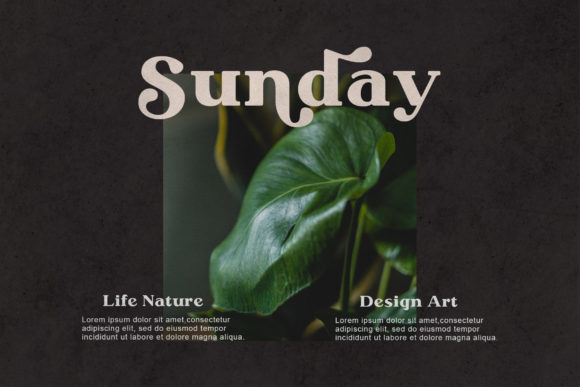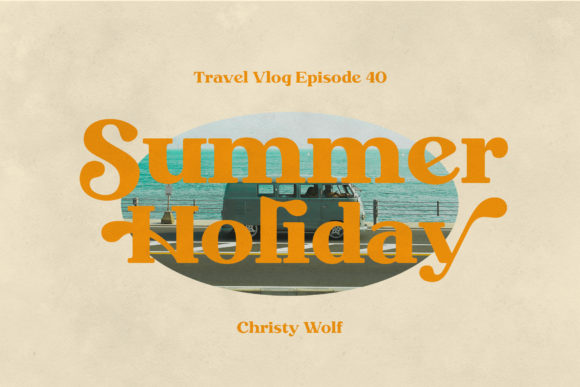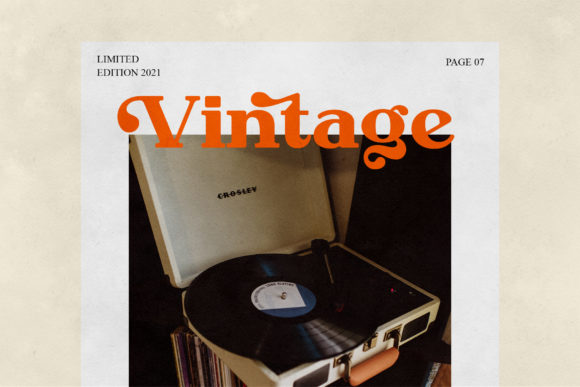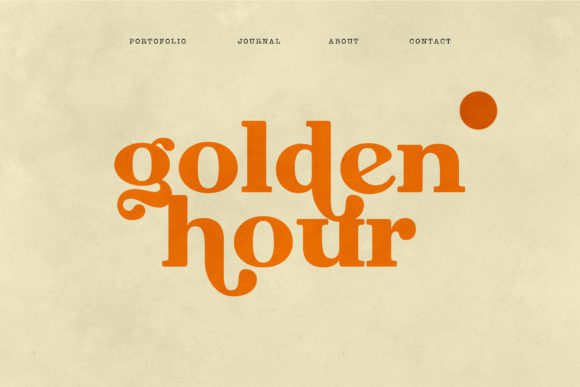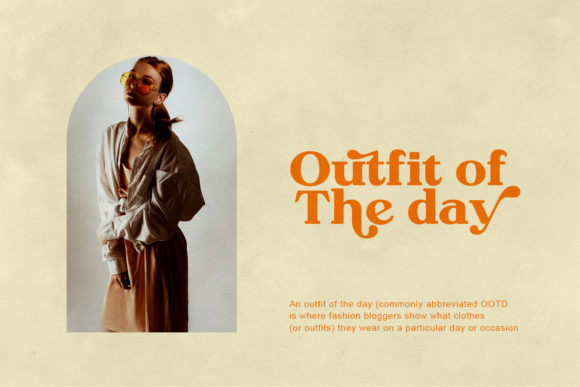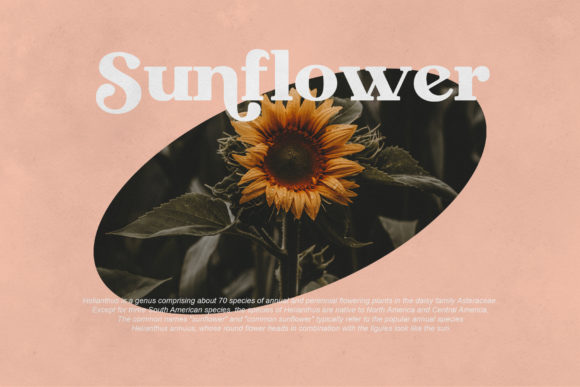
Introduction to Megusto Font
Have you ever been stuck on a creative project, desperately searching for the perfect font to bring your vision to life? I know I have. It’s like the missing piece of a puzzle, the cherry on top of a sundae, or the perfect accessory to a stylish outfit. And then, it hits you – the perfect font that elevates your design to the next level. For me, that font was Megusto Font, a stunning modern retro serif font that added a touch of sophistication to my project.
Megusto Font is more than just a design resource; it’s a game-changer for designers who want to add a unique and high-quality touch to their work. With its sleek and elegant design, it’s perfect for watermarks, logos, product packaging, marketing materials, and more. Plus, with a transparent background, you can easily integrate it into any creative project, from digital to print.
Megusto Font
- Designed with a modern aesthetic, suitable for use in digital and print media
Honest Review: Megusto Font
As a designer, I’m always on the lookout for high-quality design resources that can elevate my creative projects. Recently, I had the chance to work with the Megusto Font, and I must say, it’s been a game-changer.
- ✨ High-quality design that’s perfect for modern projects
One limitation of the Megusto Font is that it may not be suitable for more traditional or vintage-style designs. The font’s modern aesthetic may clash with older design elements.
Overall, I’m really impressed with the Megusto Font. It’s a fantastic addition to any design library, and I’d definitely recommend it to fellow designers. With its high-quality design and free download option, it’s a must-have resource for any creative project.
Megusto Font
Tips for Getting the Most Out of Megusto Font
Use Megusto Font on a transparent background to create a clean and modern look.
Combine Megusto Font with high-quality images to create a visually appealing design.
Experiment with different font styles and sizes to find the perfect combination for your creative project.
Common Use Cases for Megusto Font
Megusto Font is ideal for creative projects such as:
Brochures and flyers
Business cards and letterheads
Posters and advertisements
Infographics and presentations
Alternatives to Megusto Font
Open Sans is a highly versatile, modern sans-serif font ideal for creative projects, such as web design and print materials. It features a clean and minimalist design, making it perfect for conveying information and adding a touch of sophistication to any design. When to use: Web design, mobile apps, and marketing materials. Comparison to Megusto Font: Open Sans has a more geometric feel, whereas Megusto Font has a softer, more rounded appearance.